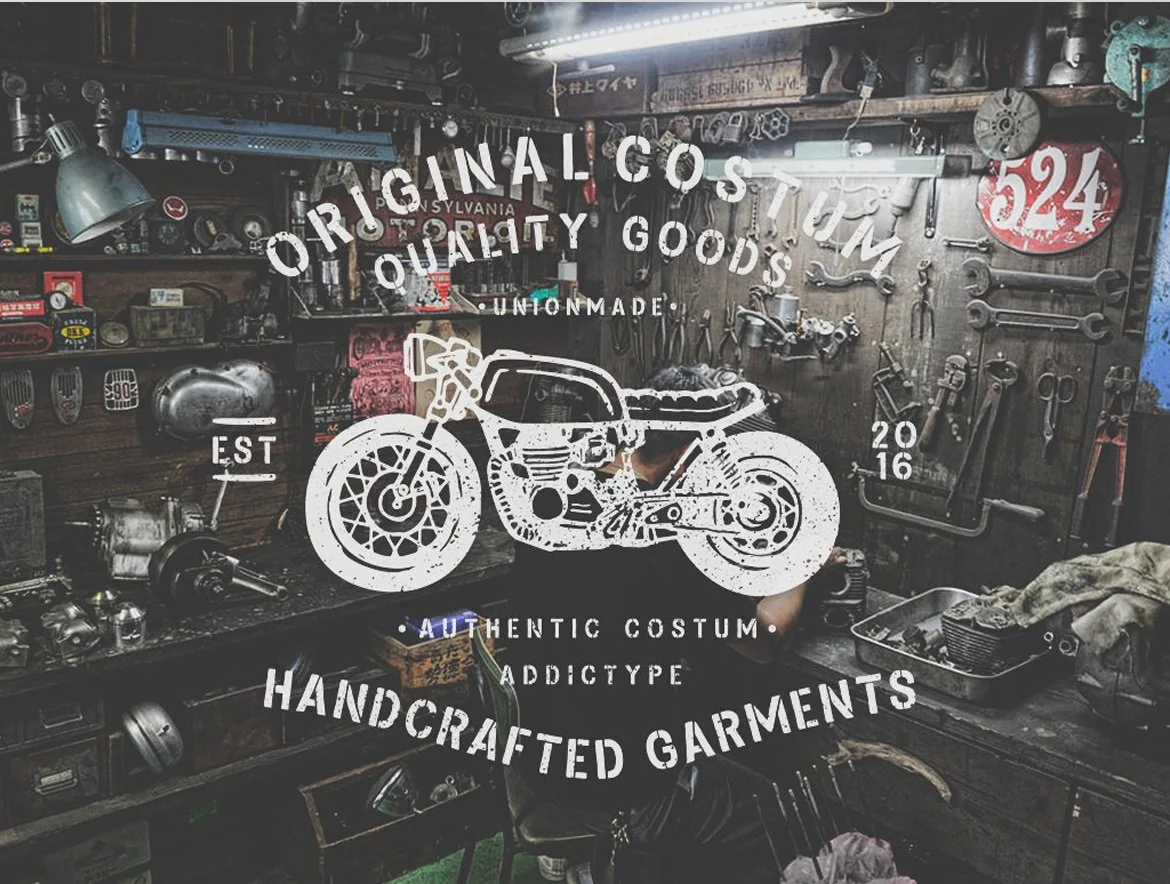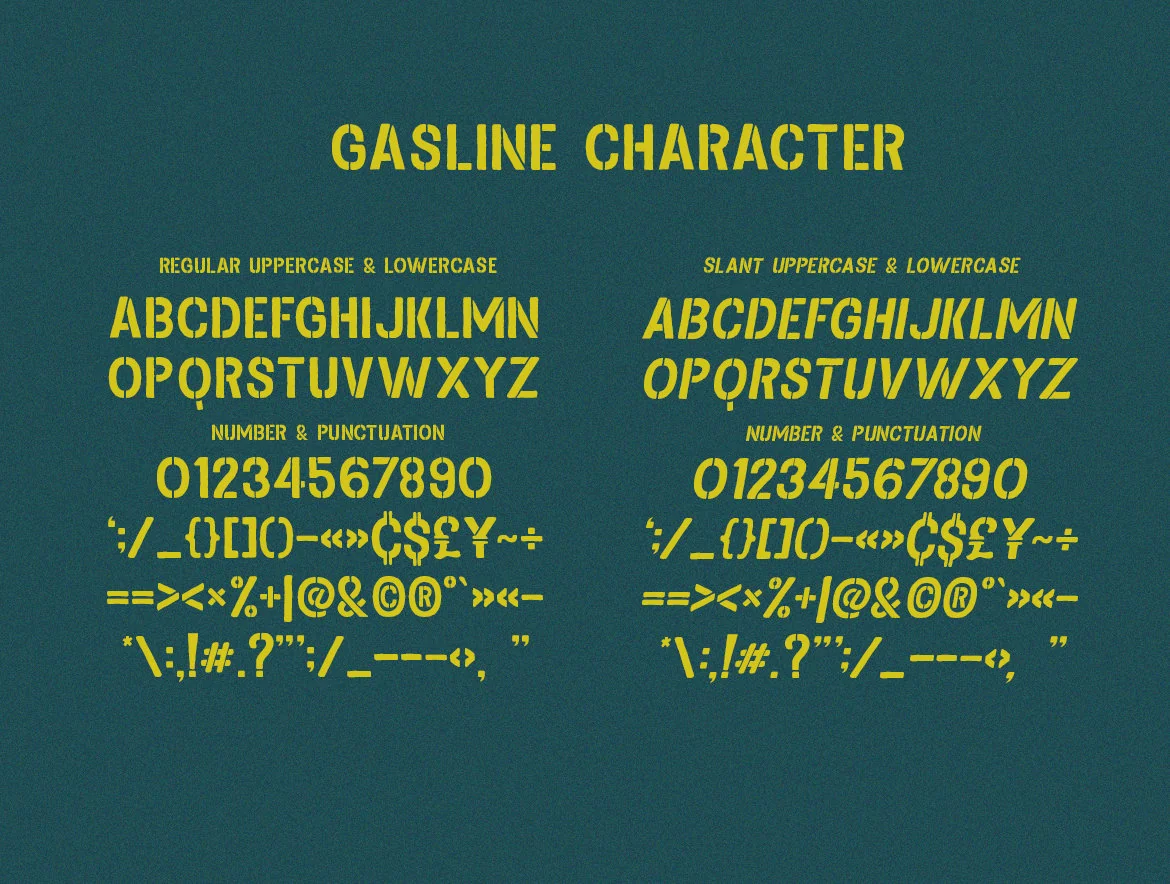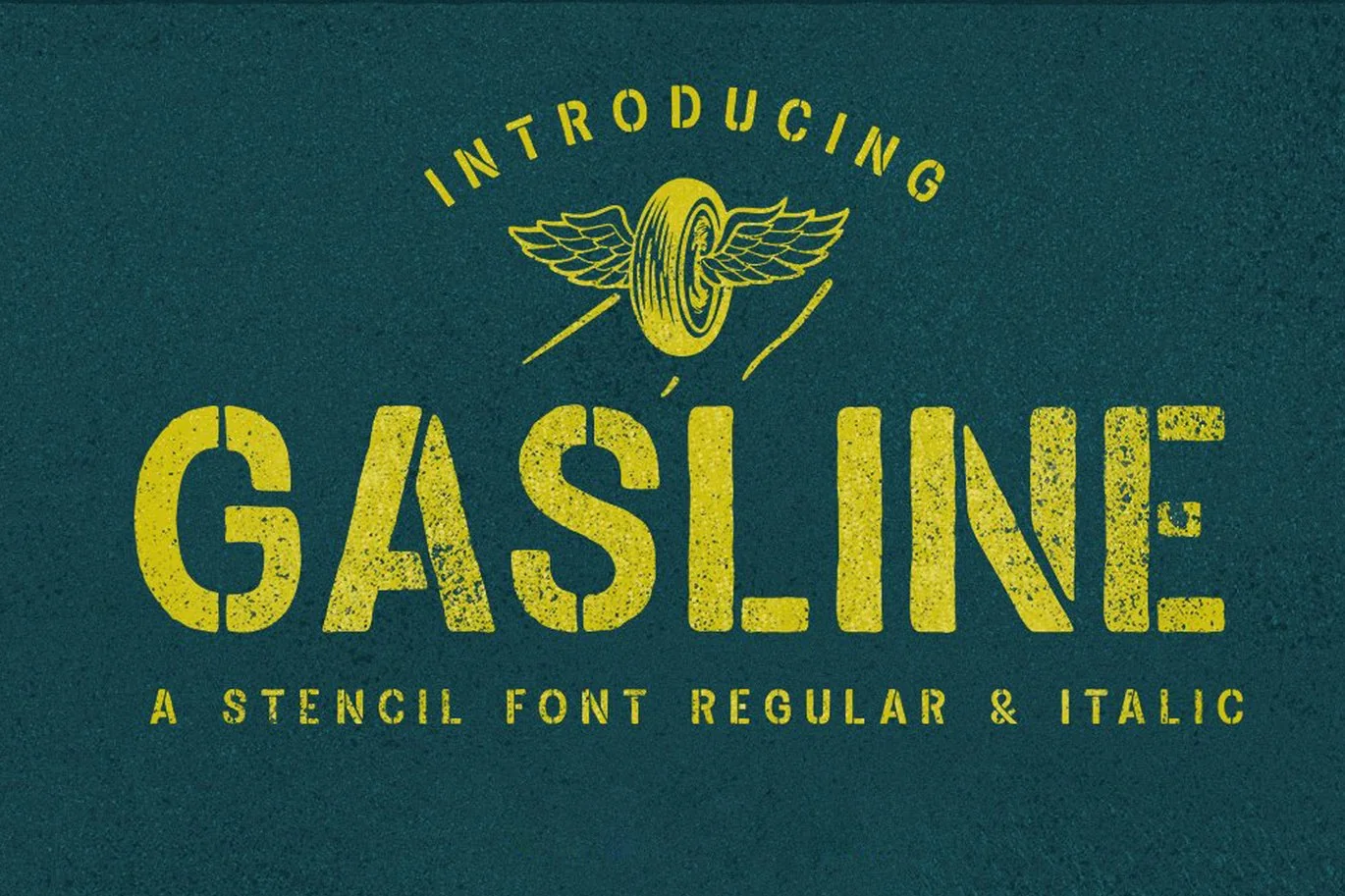
Gasline Font
gasline stencil is a condensed display typeface. update of gasline regular with the concept of stencil. It comes in regular and italic styles, gasline stencil in it is also equipped with a vector image that can simplify your job
gasline very suited for lettering, logo brand, clothing, posters and others